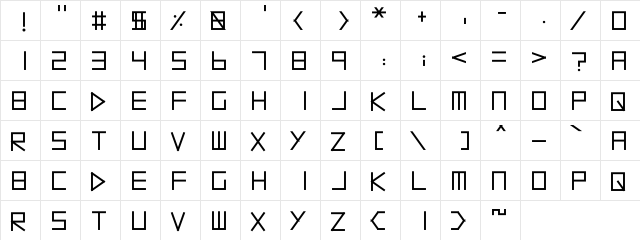
minim 100 Font Preview
minim 100
Design Context for minim Typeface
minim offers clean, dependable letterforms without strong stylistic allegiance, making it a practical choice for designers who need flexibility.